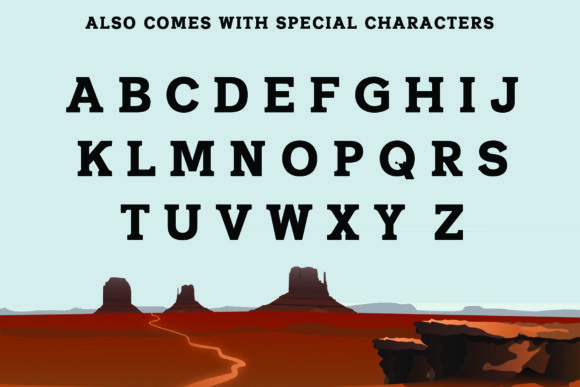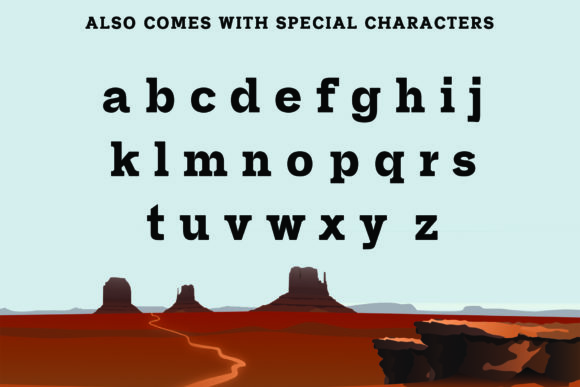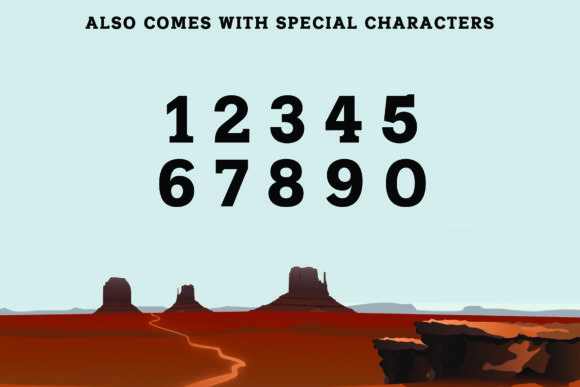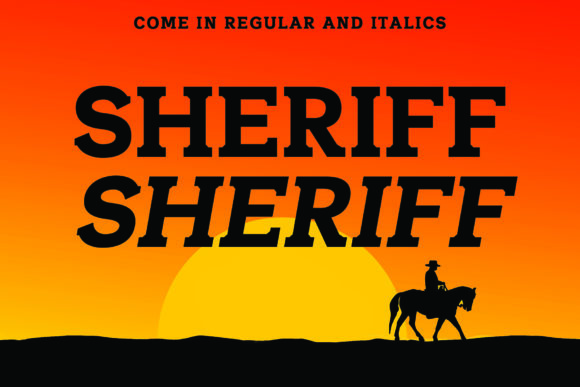
Introduction to Sheriff Font
Sheriff is a typeface for those who love the wild west.
It’s absolutely perfect for logos, titles, invitations, and more .